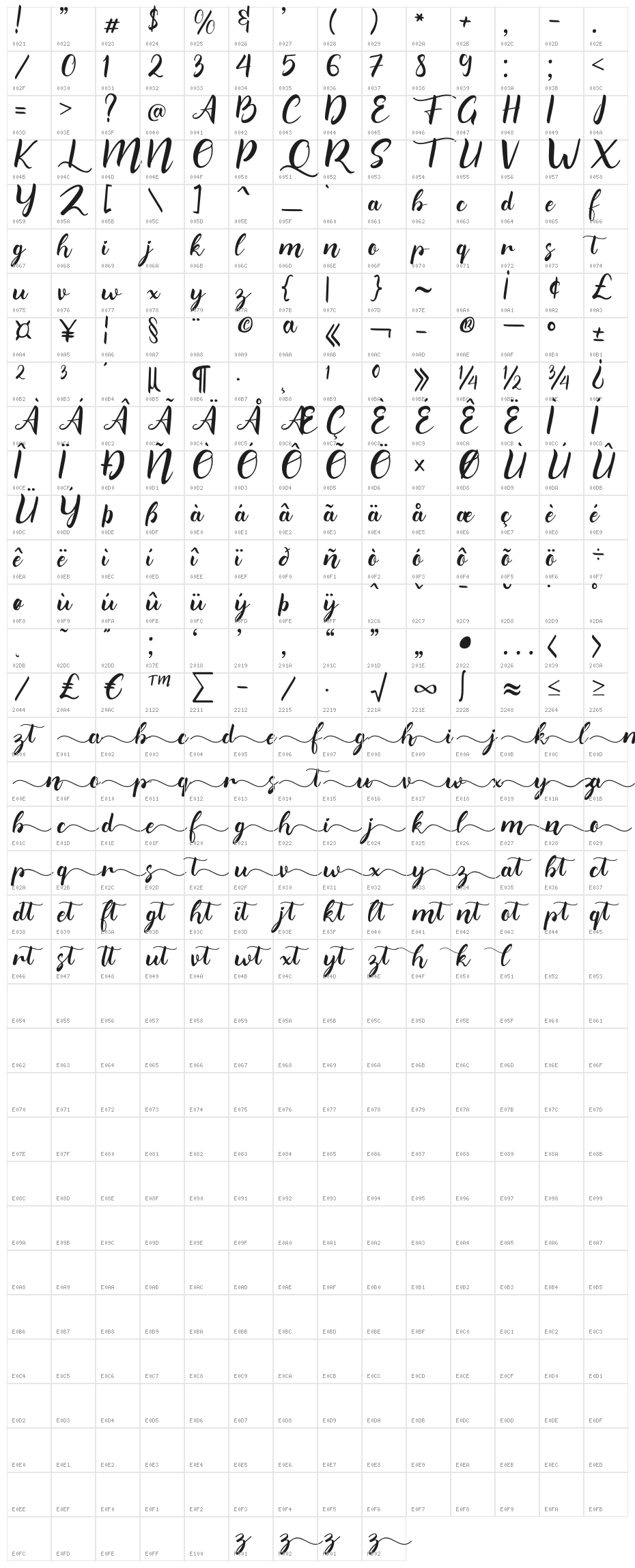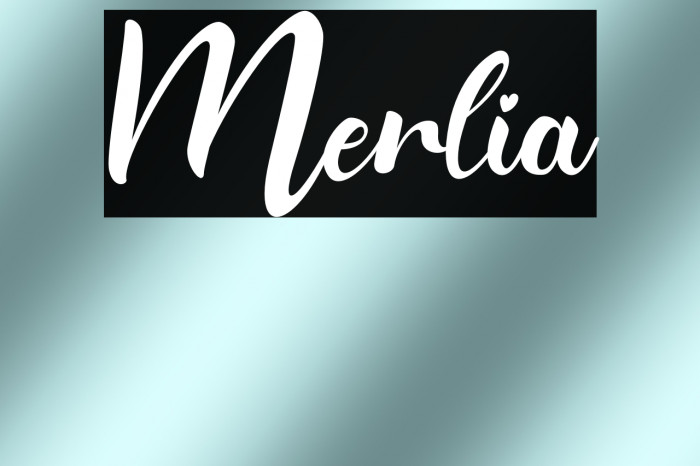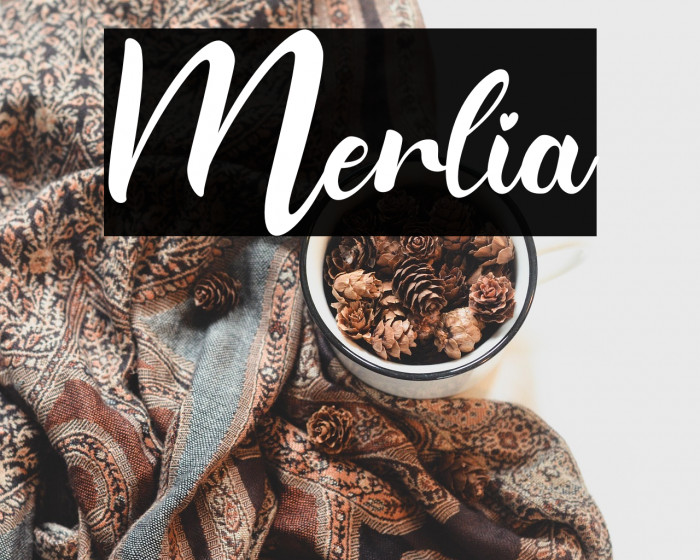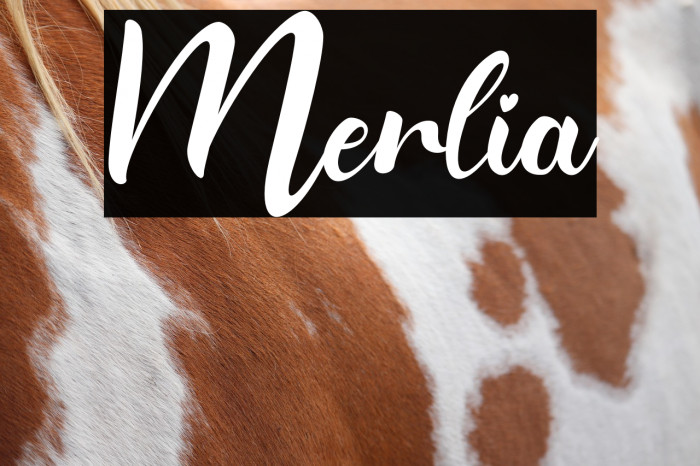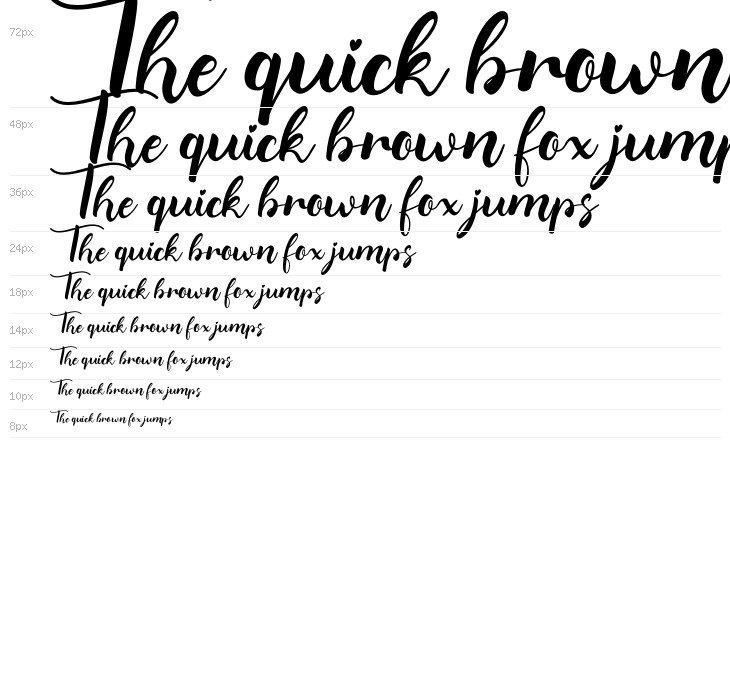
Merlia Font
✎ Script
| 分类 | Script |
| 使用场景 | Logos, Headlines, Invitations |
| 推荐项目 | Ideal for wedding invitations, branding, greeting cards, and elegant packaging designs. |